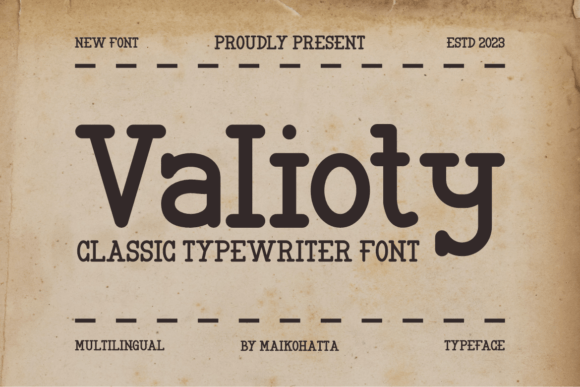
Introducing Valioty Font, the Best Font for Web Design 2015! Created by the talented maikofarazhatta, this font is the perfect blend of traditional serif elements and the timeless aesthetics of a typewriter. With its captivating impression, Valioty Font is here to revolutionize your design projects and captivate your audience like never before.
With Valioty Font, your designs will exude a classic feel that instantly transports your audience to a bygone era. Whether you're working on a website, a logo, a social media post, or any other design project, this font will infuse it with a touch of nostalgia and sophistication. Imagine the impact it will have on your audience, as they are transported back to a time when craftsmanship and attention to detail were paramount.
What sets Valioty Font apart is its ability to create a unique appearance with a retro or vintage impression. Its elegant serifs and typewriter-inspired elements combine to form a harmonious balance that is both visually appealing and emotionally evocative. Your audience won't be able to resist the charm and character that this font brings to your designs.
But Valioty Font is not just about aesthetics; it's also about functionality. It has been carefully crafted to ensure legibility and readability, making it an excellent choice for web design. Your text will be clear and easy to read, ensuring a seamless user experience. Don't let your message get lost in the clutter; let Valioty Font deliver it with clarity and impact.
Whether you're aiming for a professional, elegant look or a playful, whimsical vibe, Valioty Font can adapt to your needs. Its versatility allows it to be used in a wide range of design projects, from corporate branding to wedding invitations. Let your creativity run wild and watch as Valioty Font effortlessly brings your vision to life.
In summary, Valioty Font is the ultimate font for web design in 2015. Its combination of traditional serif elements and typewriter aesthetics creates a captivating impression that will transport your audience to a different era. With its unique retro or vintage appearance, Valioty Font adds a touch of nostalgia and sophistication to your designs. Its legibility and adaptability make it a must-have for any design project. Don't miss out on the opportunity to elevate your designs with Valioty Font!